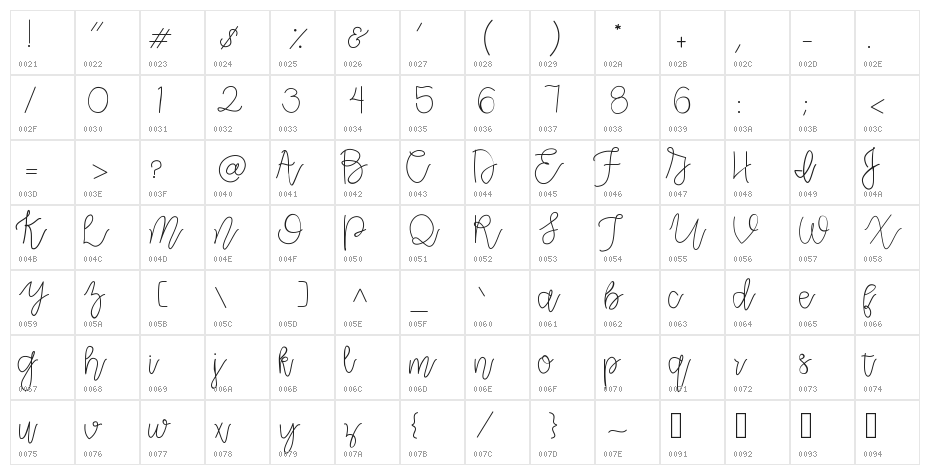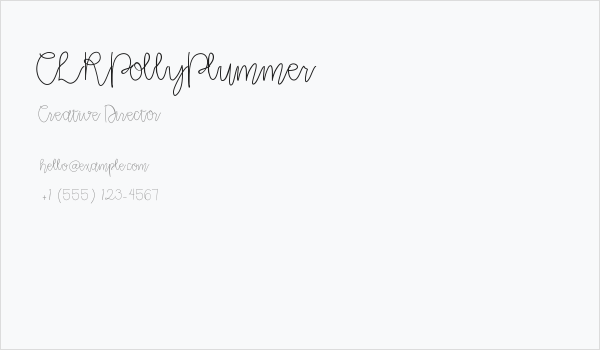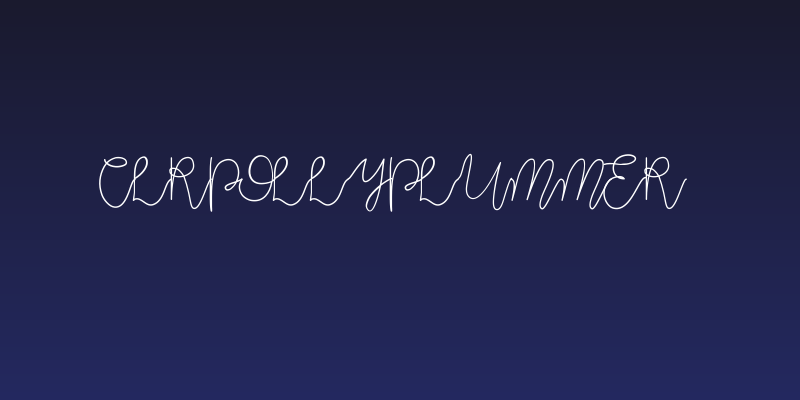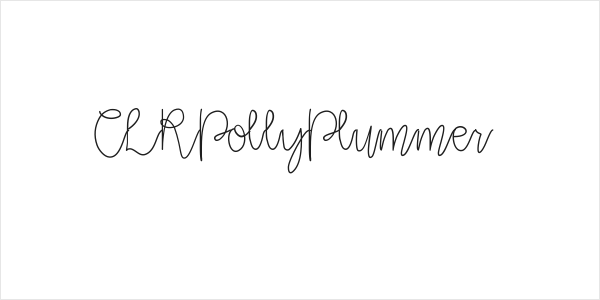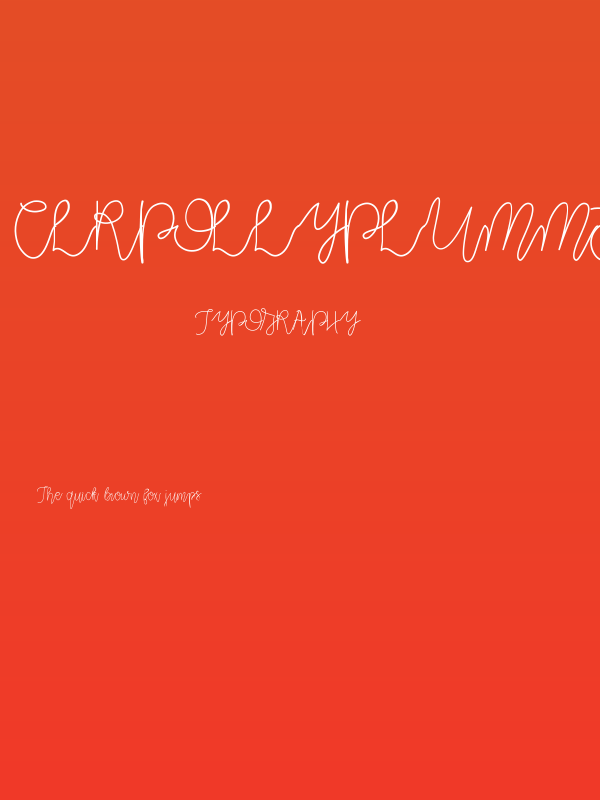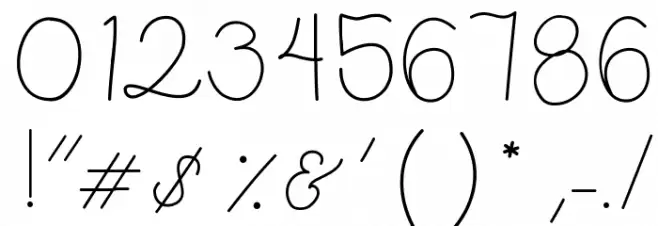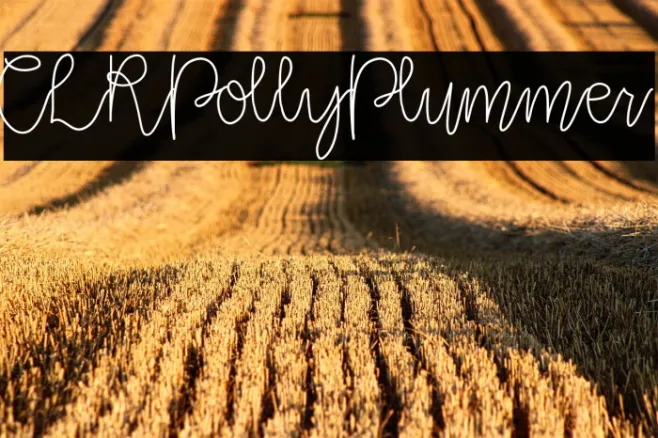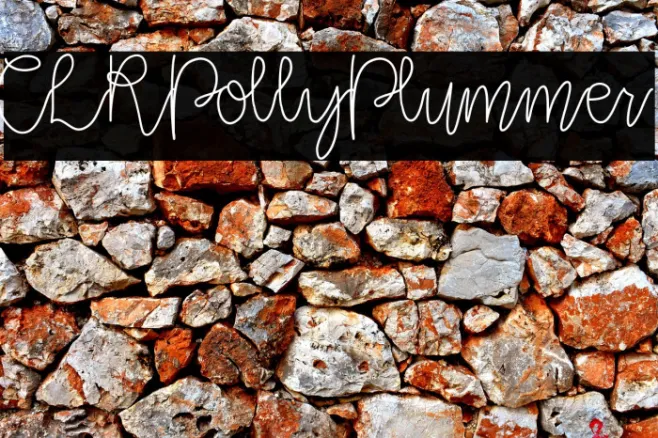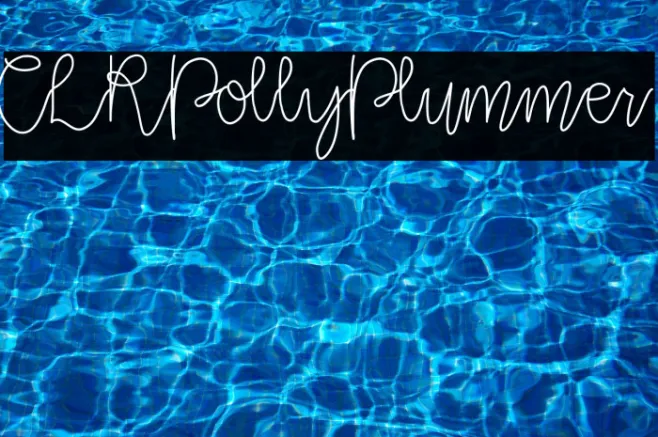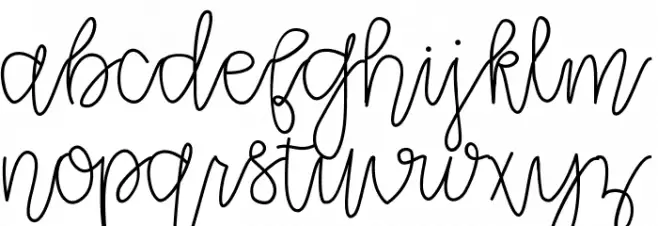
CLRPollyPlummer Font
CLRPollyPlummer Description
A flowing, handwritten script font with a casual and playful style, featuring connected letters and a natural, organic feel.
| Use Case | Logos, Invitations, Personal projects |
| Proposed Projects | Greeting cards, invitations, personal branding. |